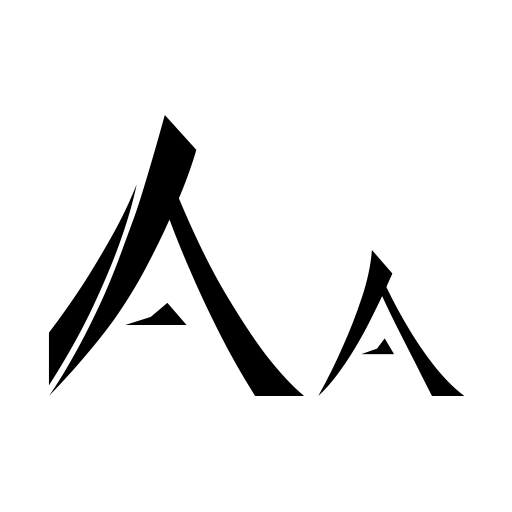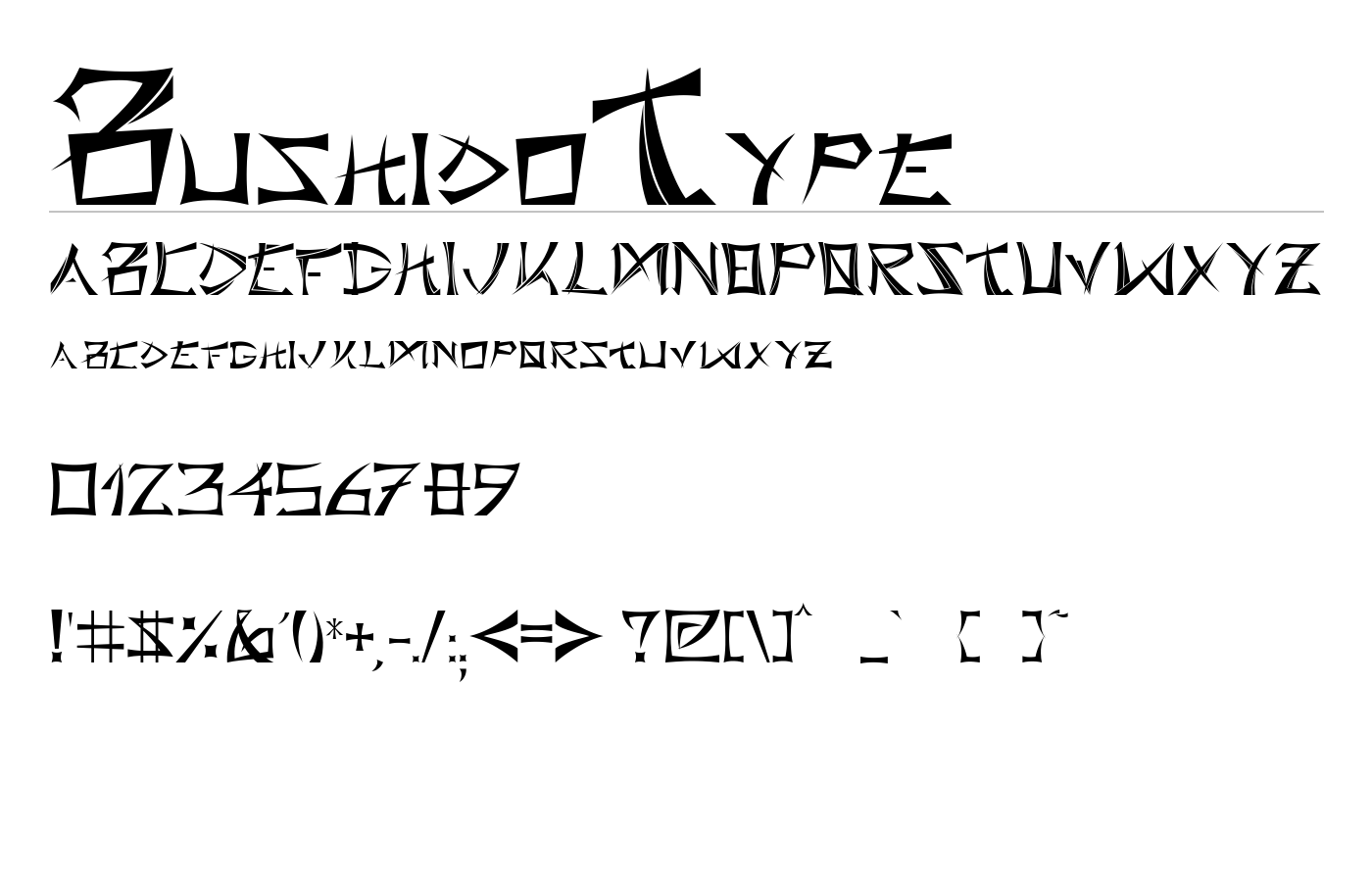
BushidoType is a bold, decorative sans serif font with sharp, angular strokes that evoke a dynamic and edgy feel. Its unique letterforms showcase a modern, artistic style with strong contrasts and slightly condensed shapes, making it perfect for attention-grabbing headlines, logos, or branding that aims to convey strength and creativity. This font works best in display settings where its striking personality can shine without sacrificing legibility.
BushidoType Font
About BushidoType Font